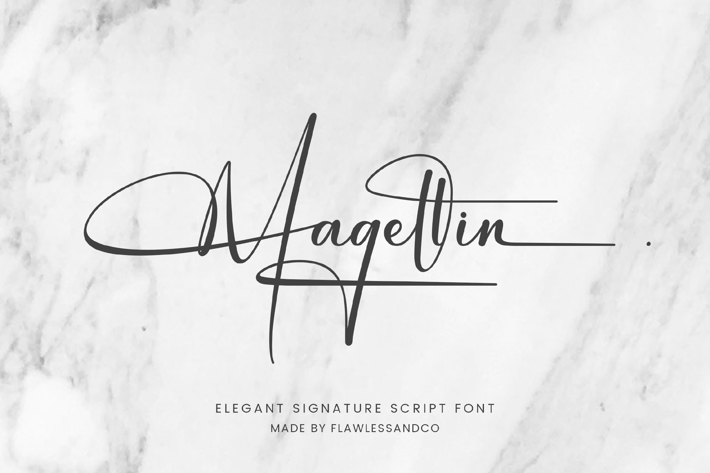
Magellin Elegant Signature Script Font
Introducing "Magellin" - An Elegant Signature Script Font, an exquisite signature script font that adds a touch of grace and style to your designs. With its fluid lines and timeless charm, "Magellin" is designed to convey a sense of refined elegance and personal touch. This font is suitable for any graphic design, such as branding materials, wedding invitations, signatures, posters, photography, etc.
Uppercase alphabet A-Z
Lowercase alphabet a-z
Alternate Character
Numbers 0-9
Some punctuation